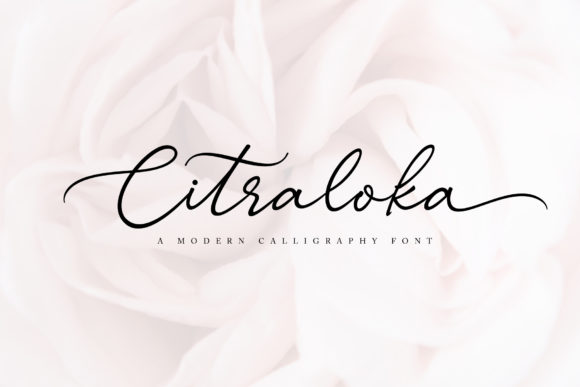
In a world swirling with digital clutter, authenticity stands as a beacon of distinction. Citraloka, a creation of Nyalaapi, emerges as a captivating calligraphic script, ready to infuse your designs with a touch of genuine artistry. Its light and playful swashes dance across the page like whispers of a forgotten era, evoking a sense of nostalgia and wonder.
With Citraloka's enchanting strokes, transform your words into visual masterpieces. Its cursive charm lends an air of elegance to invitations, wedding stationery, and branding projects, while its playful nature adds a touch of whimsy to social media posts and digital designs.
Journey into the realm of creativity, where Citraloka's versatility knows no bounds. Its delicate lines and flowing curves seamlessly adapt to a myriad of design styles, from classic and vintage to modern and minimalist. Unleash your imagination and witness the magic unfold as Citraloka weaves its spellbinding charm across your projects, captivating your audience with its timeless beauty.
Embrace the allure of Citraloka, a font that speaks volumes without uttering a single word. Its expressive swashes and graceful flourishes convey emotions that words alone cannot capture. Let your designs exude a symphony of feelings, from the warmth of a handwritten letter to the vibrancy of a modern masterpiece.
Indulge in the limitless possibilities that Citraloka presents. Its OpenType features, including swash alternates and ligatures, empower you to craft typographic compositions that dance with creativity and originality. Each letter dances harmoniously with the next, creating a visual spectacle that captivates the beholder's gaze.
Don't let your designs fade into the background. Embrace the allure of Citraloka, a font that exudes individuality and captivates hearts. Ignite your creativity, elevate your designs, and leave an indelible mark on the world, one letter at a time.